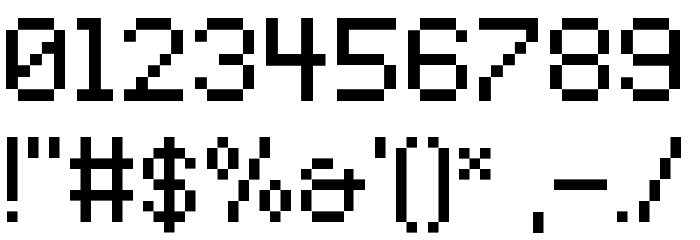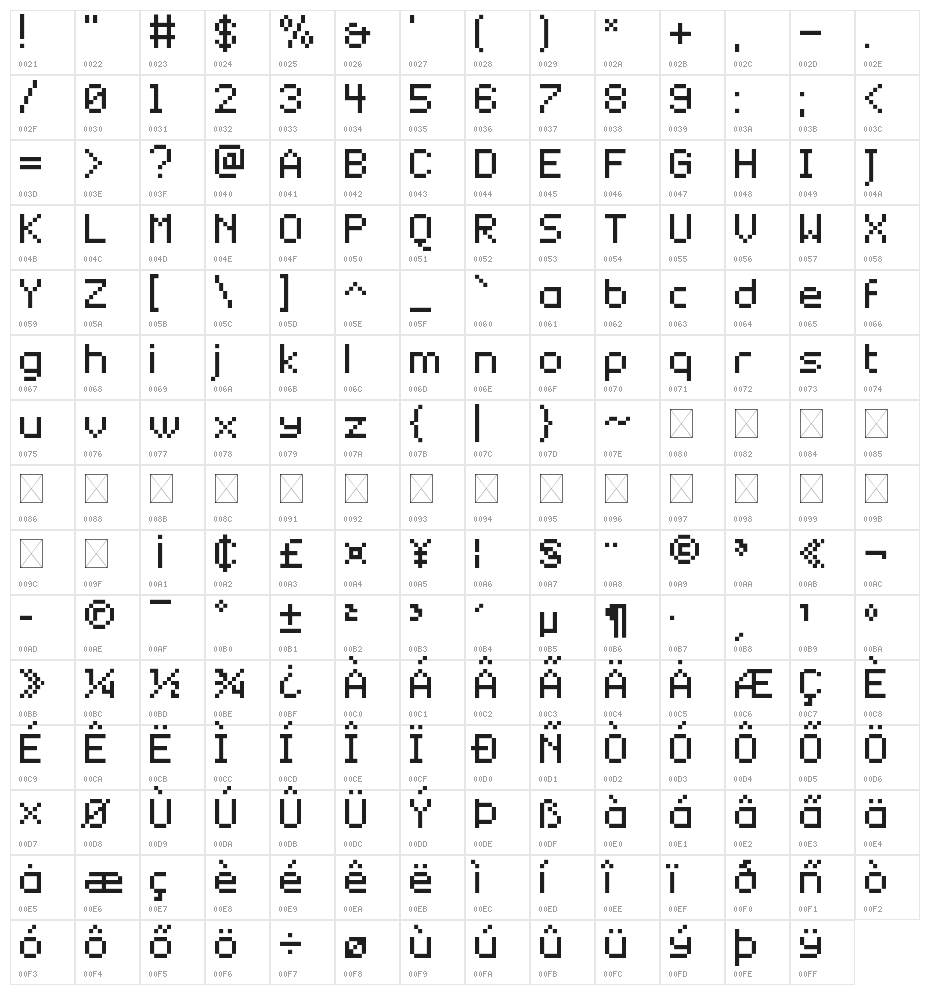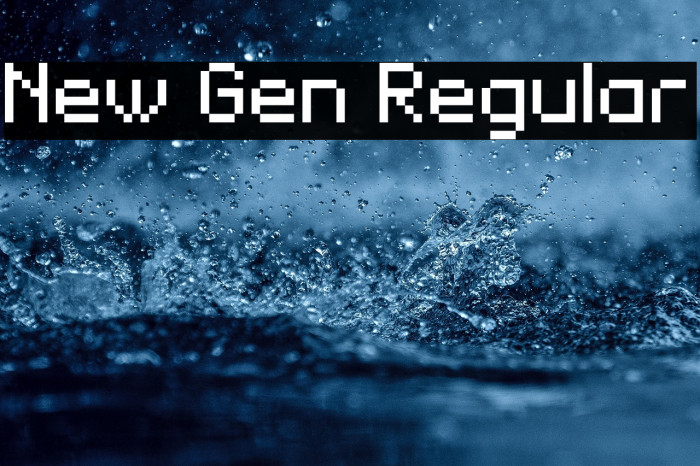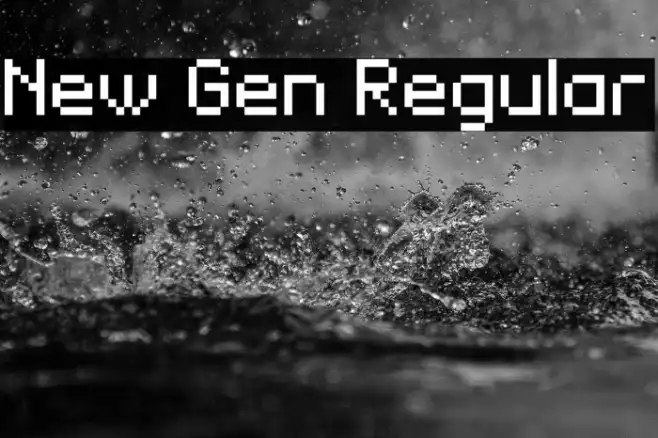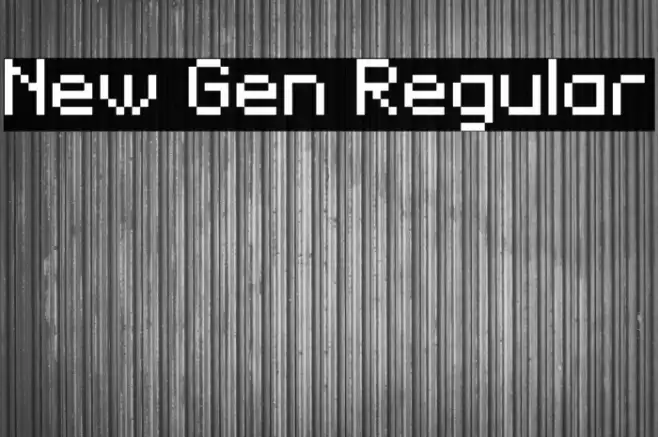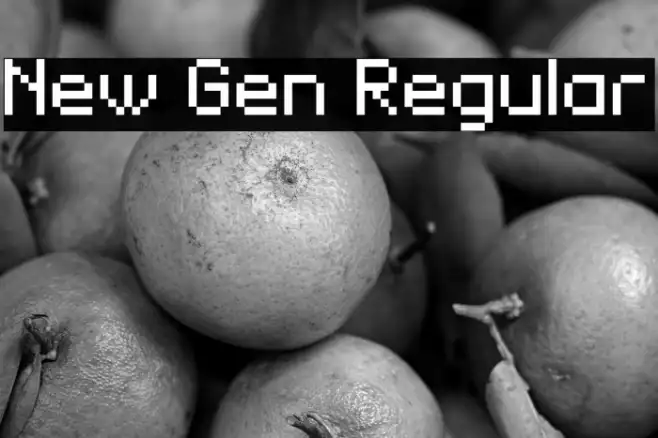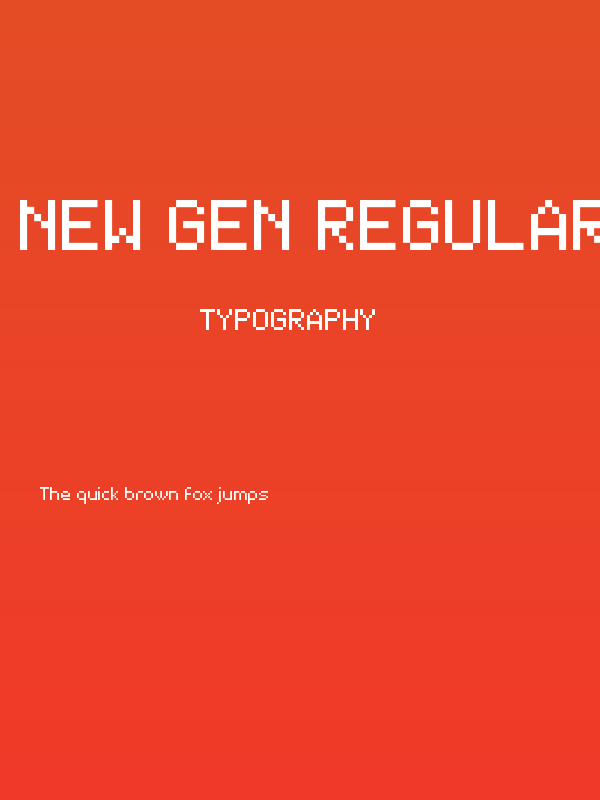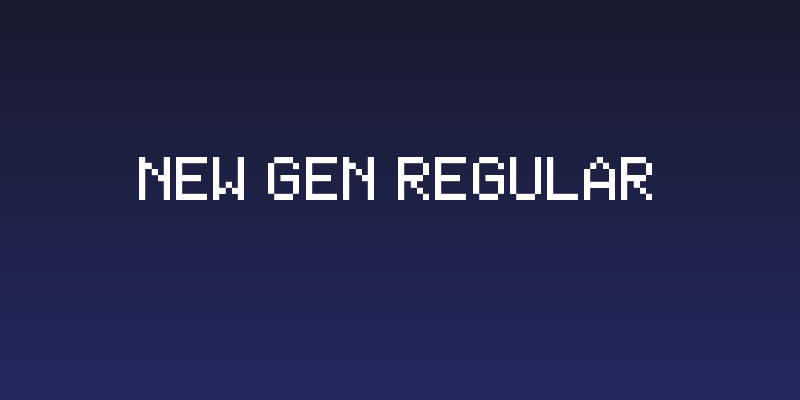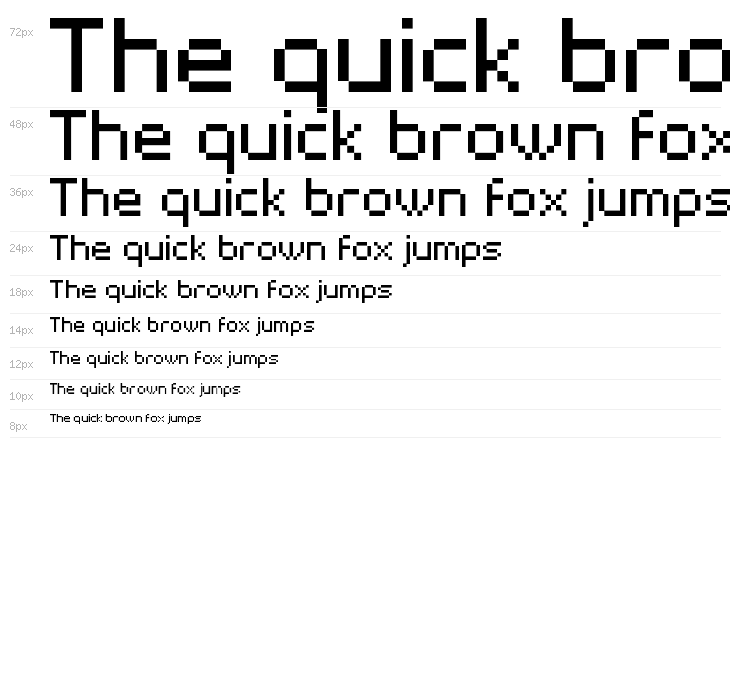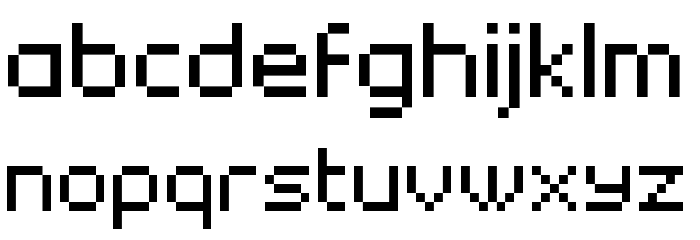
New Gen Regular Font
New Gen Regular Description
This font features a pixelated, blocky style reminiscent of early digital and video game typography. Each character is constructed with uniform square blocks, giving it a distinctly retro and digital appearance. The uppercase and lowercase letters maintain consistent proportions, with a geometric precision that enhances readability. Numbers and special characters follow the same pixelated design, ensuring a cohesive look across all glyphs. The font's simplicity and clarity make it ideal for digital displays and retro-themed projects.
| Use Case | Headlines, Digital displays, Video games |
| Proposed Projects | Ideal for video game design, digital art projects, retro-themed websites, and pixel art. |